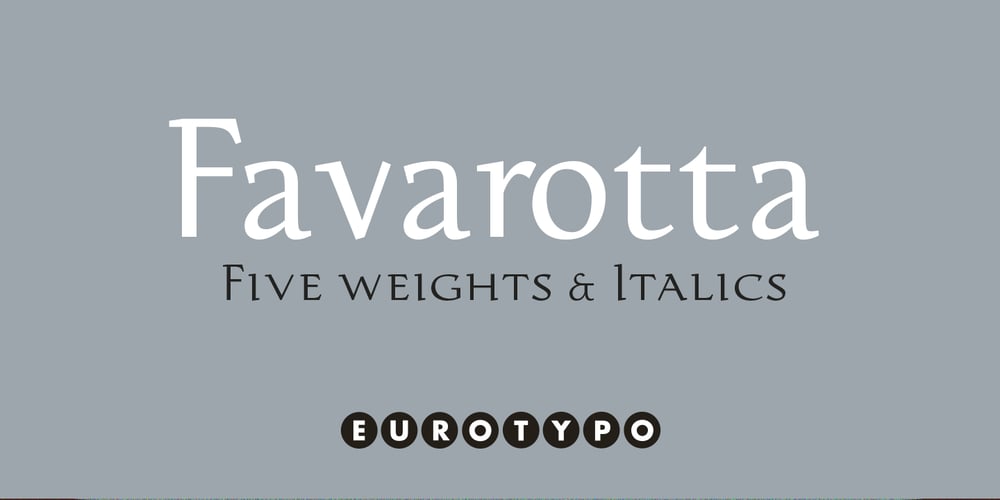
Favarotta Font Family was designed by Olcar Alcaide and published by Eurotypo. Favarotta contains 10 styles and family package options. Favarotta was a small settlement on the medieval times. in the Gulf of Castellammare near Palermo, Sicily. Favarotta font is inspired on the style of writing based on Carolingian models, which continued to be used for handwritten liturgical works in Italy. The style show close affinities with the Italian printed books of the period. It combines Roman cursive writing ideas with some of the Celtic innovations in insular writing, including four guide lines, with strokes that flow smoothly from the ascending and descending. Favarotta font family contain five weigh and its corresponding italics. The Italic style are clearly legible and attractively set out, without obvious idiosyncratic tendencies. These fonts can be read and display with pleasure. Each font of the family contain standard ligatures, small caps, old style numerals and support CE languages.